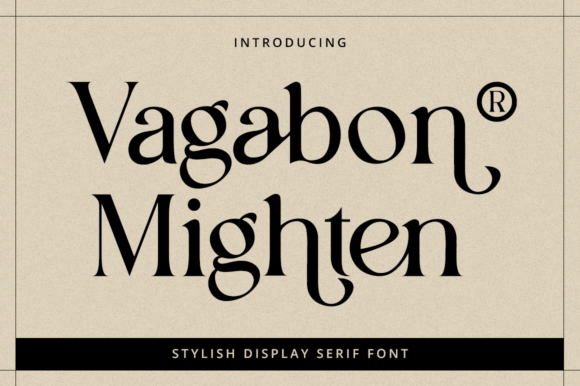
Vagabon Mighten: The Elegant Thin Serif for Designers
Introduction – What is Vagabon Mighten?
If you’re hunting for a typeface that balances delicate structure with serious versatility, Vagabon Mighten deserves a close look. This elegant serif font brings a thin, airy character to the table without feeling fragile—a rare quality in contemporary display type. Right from the first test word, its neat and clean style signals that it’s built for projects where clarity and personality matter equally. Many designers looking for a Vagabon Mighten free download are surprised to discover how polished the letterforms feel, even before committing to a license. It fits comfortably into the Display category, but its restrained weight ensures it won’t overwhelm branding or editorial work. Below we’ll unpack the design details, practical uses, licensing facts, and pairing ideas that make this font a genuine contender for your next favorite go-to typeface.
Elegant Thin Letterforms
The defining trait of Vagabon Mighten is its exceptionally refined stroke weight. The thin verticals and subtle bracketed serifs create a sophisticated silhouette that reads beautifully at larger sizes. Unlike many ultra-light fonts that vanish on screen, this one maintains strong legibility thanks to carefully drawn counters and slightly extended terminals. The letterforms carry a quiet warmth, avoiding the cold, geometric precision that can make a premium Display font feel sterile. In a side-by-side Vagabon Mighten vs similar font comparison, you’ll notice it holds more organic character than typical fashion-inspired serifs, making it less trendy and more timeless.
Breathing Space and Modern Mood
Spacing is generous without being loose. The designer paid close attention to sidebearings, which gives every word an open, approachable rhythm. This quality makes Vagabon Mighten exceptionally good for headlines where you want the type to breathe—think magazine layouts, minimalist websites, or luxury packaging. The mood walks a line between classic editorial and modern boutique, which is why it’s often labeled a professional Fonts font in creative circles. Its light weight also creates striking contrast when layered over photography, something many heavy Display choices can’t pull off without overwhelming the image.
Vagabon Mighten for Logo Design
Logos need a typeface that communicates instantly, and this serif does exactly that. Its slim strokes bring a high-end feel to fashion labels, photography brands, or artisanal startups. Because the letterforms are so distinct, even a simple wordmark can become a recognizable asset. When testing Vagabon Mighten for logo design, try tracking the letters out slightly and switching to all-uppercase for a truly upscale lockup. The font’s elegant DNA means you rarely need extra ornamentation—it already speaks clearly enough for luxury and lifestyle identities.
Vagabon Mighten for Branding
Beyond logos, consistent branding relies on typography that scales across touchpoints. Vagabon Mighten works beautifully on business cards, hang tags, and digital banners. Its thin weight may not be ideal for dense body copy, but as a Display typeface it anchors a visual system with grace. Brands that embrace a minimal, refined aesthetic often seek best Display fonts for use case like this—something that elevates without shouting. Used sparingly alongside a sturdy text font, it creates a hierarchy that feels intentional and polished across all brand materials.
Vagabon Mighten for Wedding Invitations and Stationery
Wedding suites are a natural home for this font. The delicate lines align perfectly with romantic, airy design trends. Whether you’re working on invitation cards, envelope addressing, or day-of paper goods, Vagabon Mighten adds a bespoke, timeless quality. Many couples and stationers specifically look for Vagabon Mighten for wedding invitations/cards/typography because it captures a sense of occasion without tipping into overly ornate calligraphy. For a cohesive suite, match it with a neutral sans-serif for the smaller details.
Vagabon Mighten for Posters and Social Media Graphics
In poster design and social media campaigns, grabbing attention softly can be more effective than screaming. This serif shines on event posters, quote graphics, and Instagram stories where you want text to feel considered rather than loud. Its high contrast against backgrounds makes it a favorite for fashion lookbooks and editorial-style posts. If you’re building a series of brand templates, consider using a free Display font for Fonts like this as your headline star—it stays legible even on mobile screens when sized appropriately.
Vagabon Mighten for Packaging and Editorial Design
From candle jars to book covers, packaging benefits from type that feels tactile and refined. Vagabon Mighten adapts well to product labels, especially in the wellness, beauty, or gourmet food sectors. Its clean construction means foil stamping or embossing renders beautifully. Editorial designers also reach for Vagabon Mighten for branding in magazine spreads and lookbook layouts, using it for pull quotes and section dividers. The slim weight pairs exceptionally well with full-bleed photography for a high-fashion editorial rhythm.
What Fonts Pair Well with Vagabon Mighten?
Because Vagabon Mighten is a light Display serif, the strongest pairings are with neutral, medium-weight sans-serifs or slightly condensed humanist faces. The goal is to create contrast without conflict—something sturdy to ground the airy elegance. The most effective best font combinations with Vagabon Mighten maintain a clear voice difference while sharing a similar x-height. Below are three solid pairing directions that have worked consistently across real projects.
Vagabon Mighten Font Pairing with Sans-Serifs